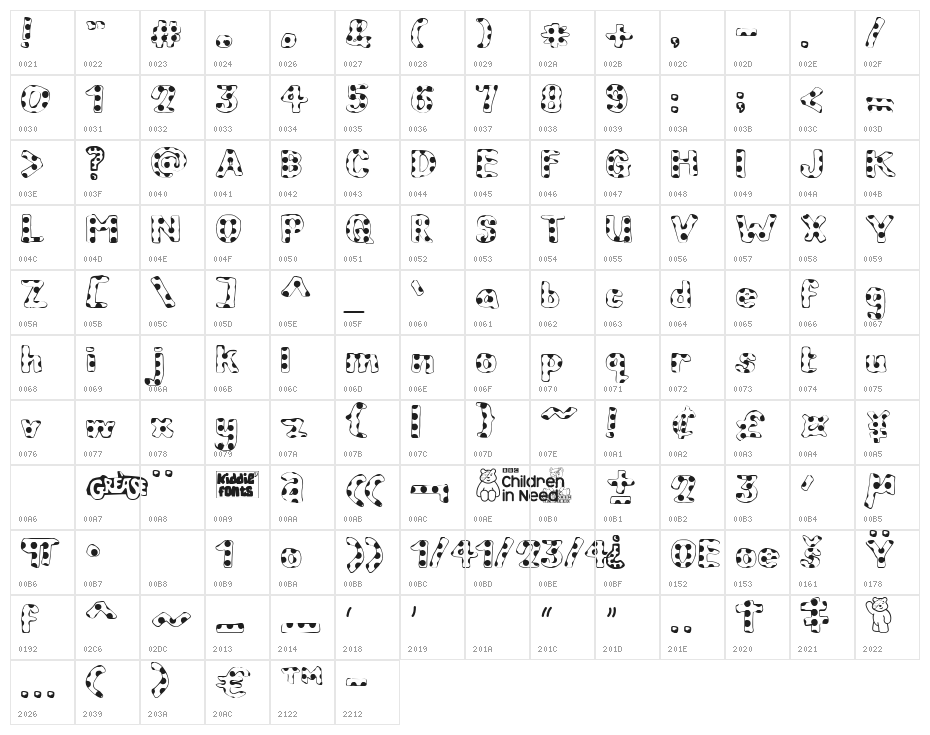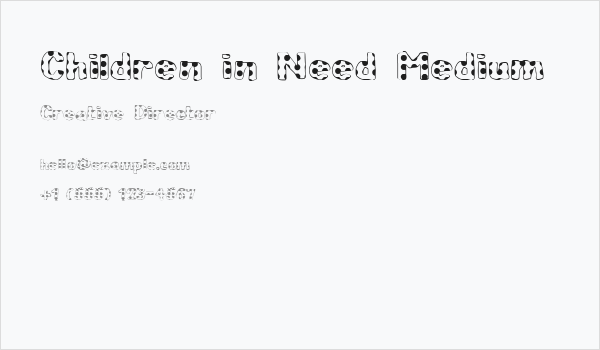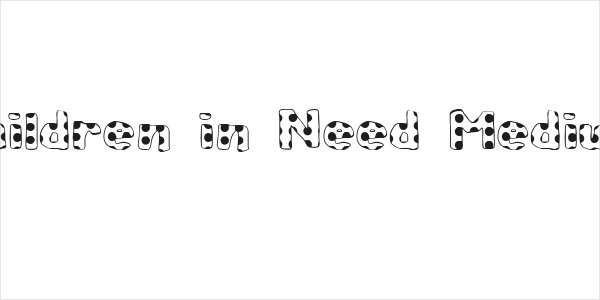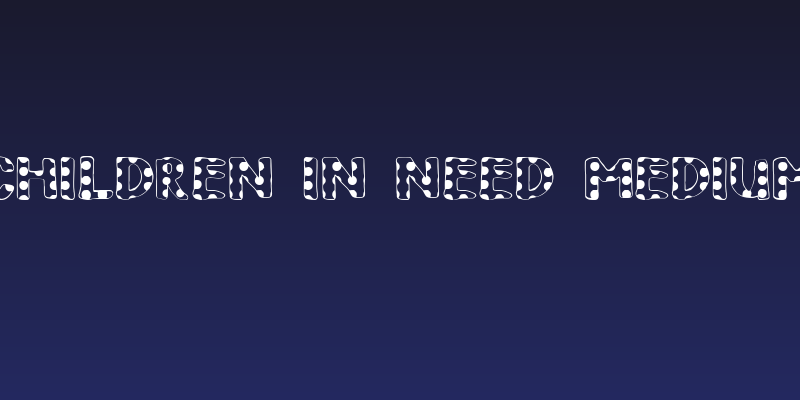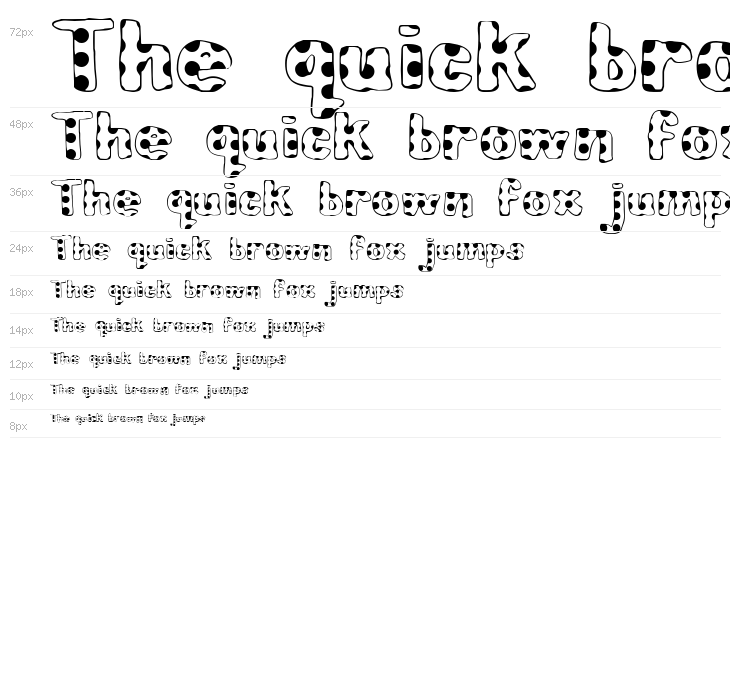
Children in Need Medium Font
Children in Need Medium Description
This playful and whimsical font features a unique spotted pattern reminiscent of cow prints, adding a fun and lively touch to any design. The characters are bold and rounded, with a consistent thickness that maintains readability while offering a distinctive decorative flair. The font's quirky style makes it ideal for projects aimed at children or those requiring a lighthearted and cheerful aesthetic. Its bold presence ensures that it stands out, making it suitable for headlines or titles where attention-grabbing is essential.
| Proposed Projects | Ideal for children's books, playful branding, event posters, and educational materials. |